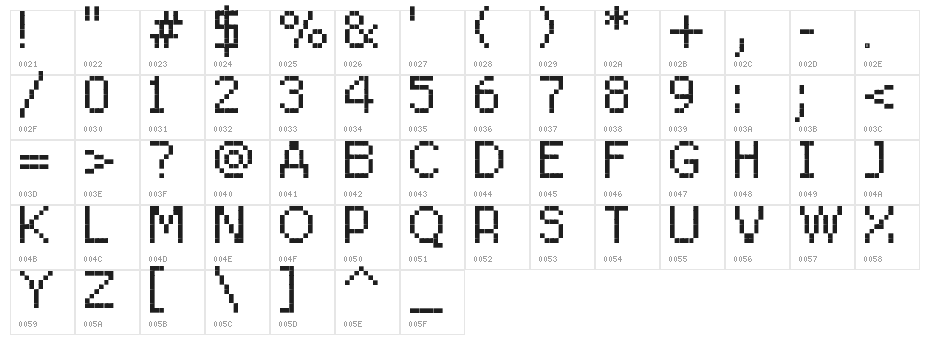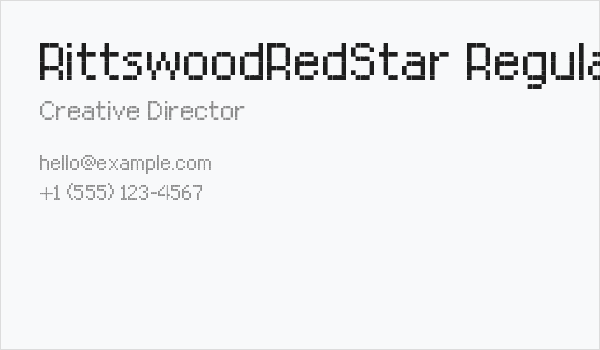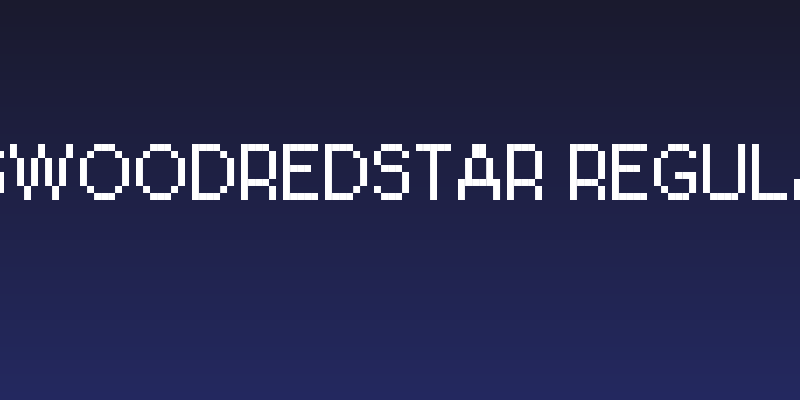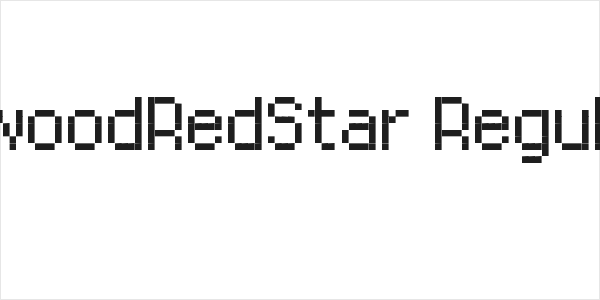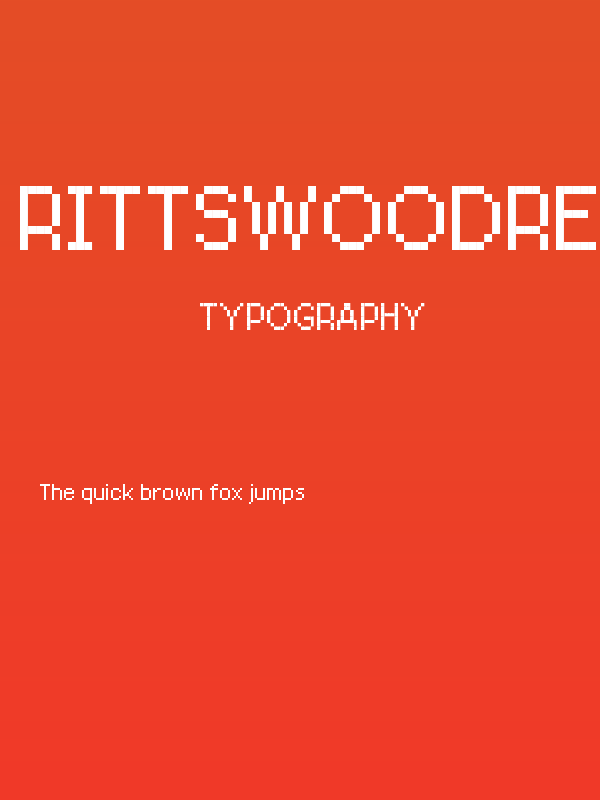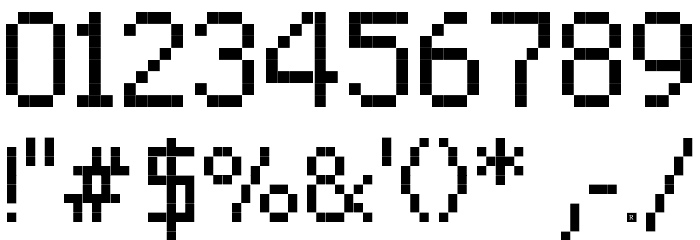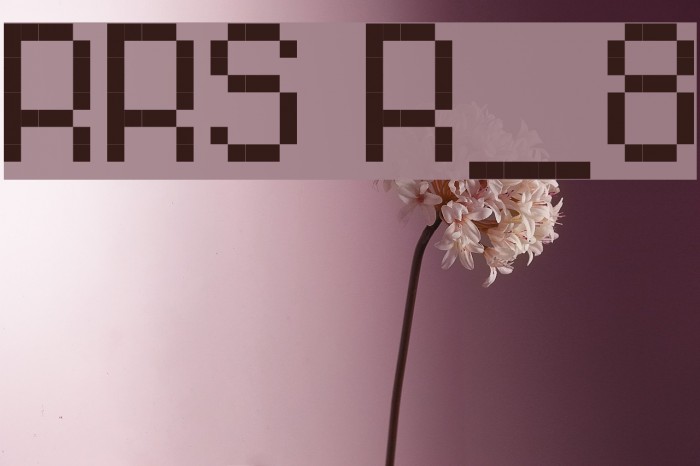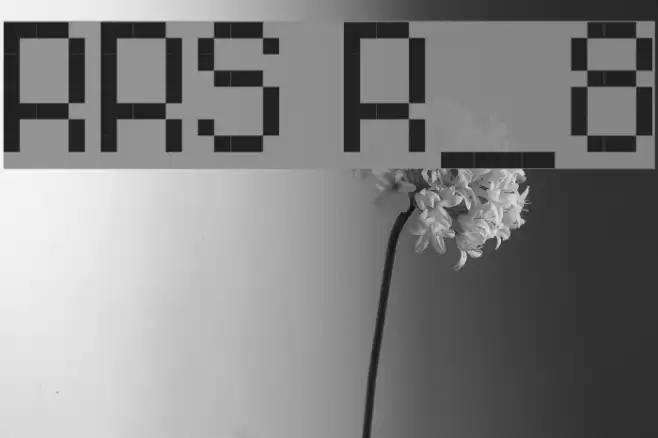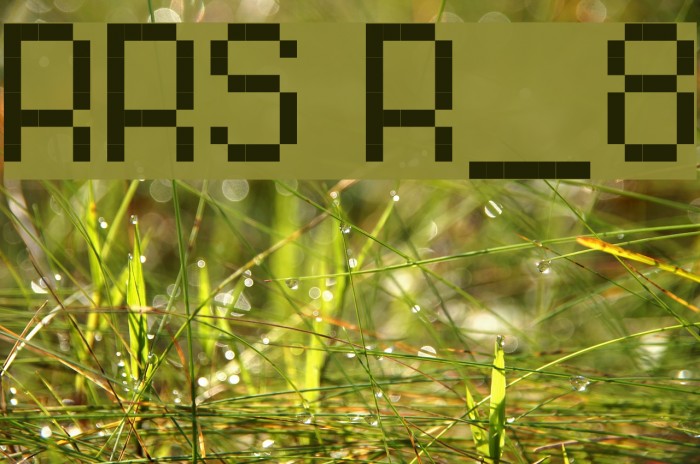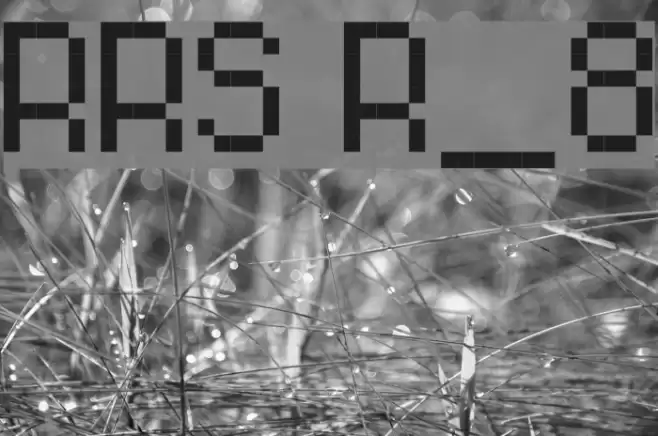
RittswoodRedStar Regular_8 Font
RittswoodRedStar Regular_8 Description
This font features a pixelated, blocky design reminiscent of early digital displays and retro video games. Each character is composed of square blocks, creating a distinct and nostalgic aesthetic. The uppercase and lowercase letters maintain a consistent height, contributing to a uniform appearance. The numerals and special characters follow the same pixelated style, ensuring cohesion across all glyphs. This font's unique design makes it ideal for projects that aim to evoke a sense of nostalgia or a digital, tech-inspired theme.
| Overall Style | Retro, Digital |
| Use Case | Headlines, Logos, Digital Art |
| Proposed Projects | Ideal for retro video game graphics, digital art projects, tech-themed posters, and nostalgic branding. |